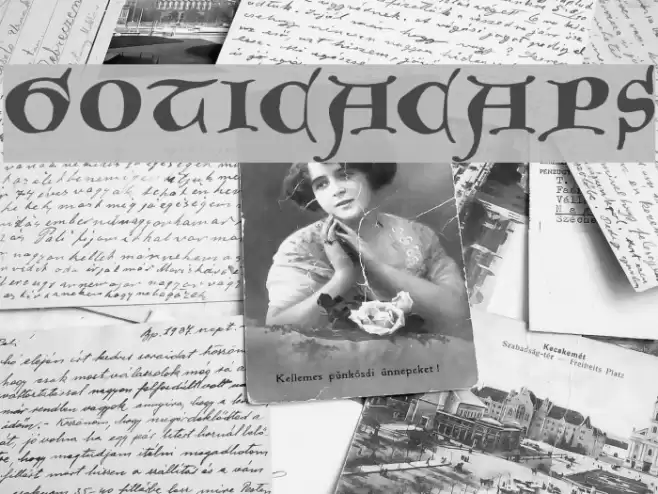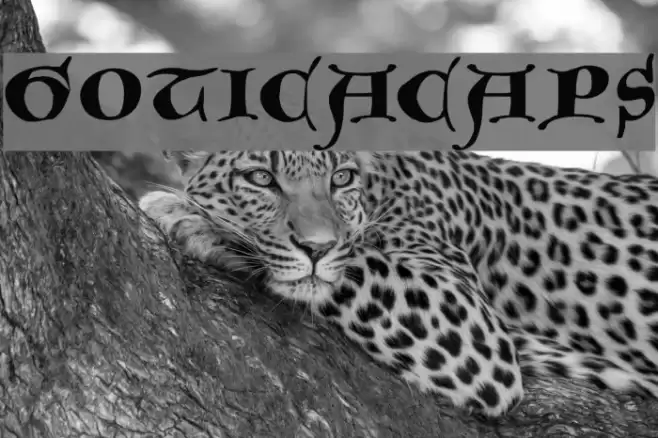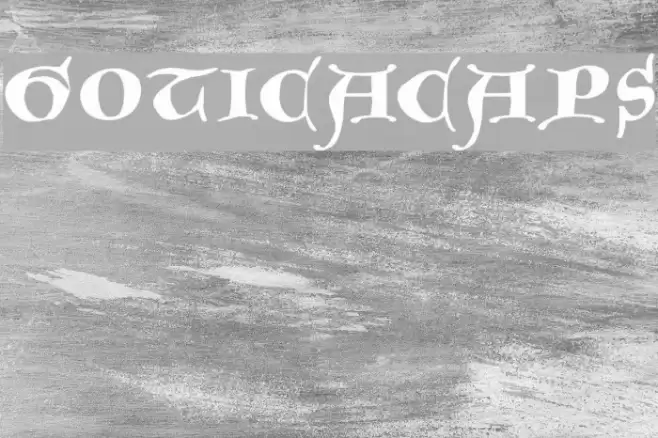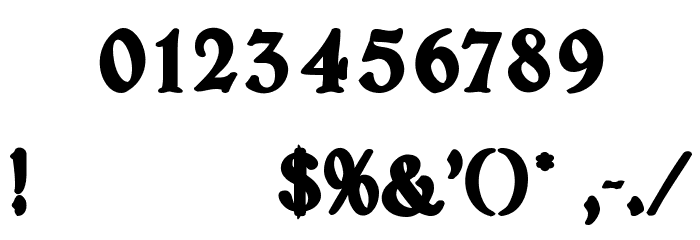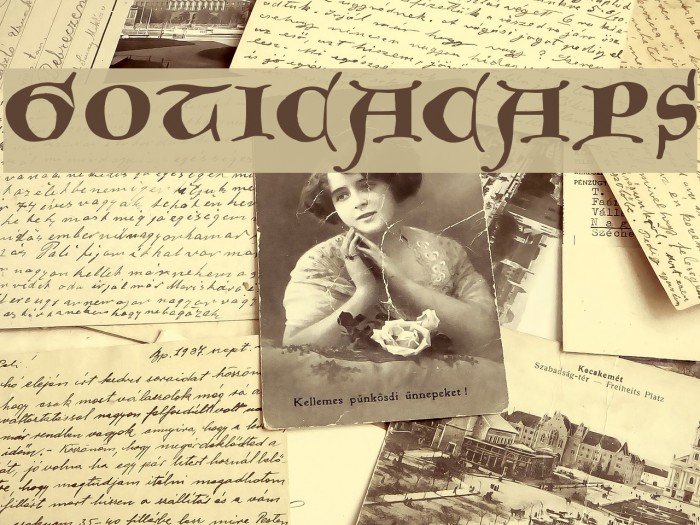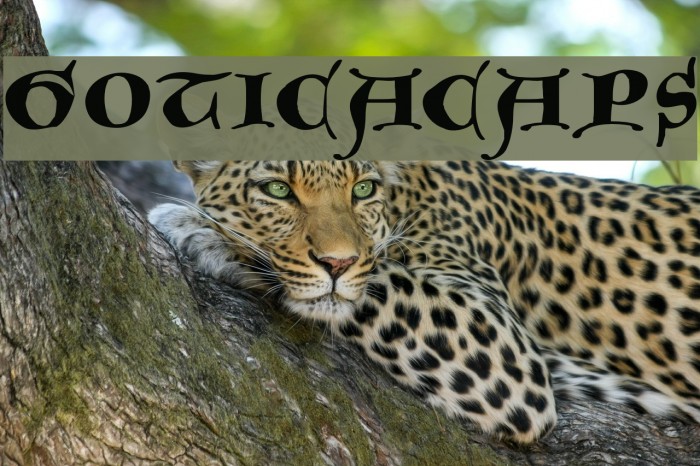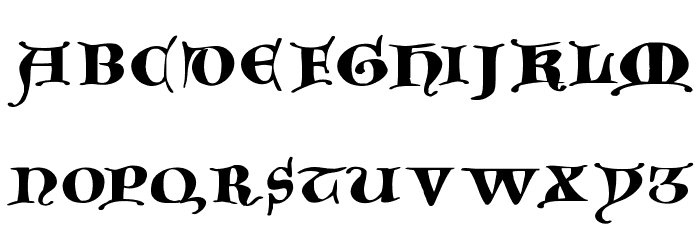
GoticaCaps Font
GoticaCaps Description
This font features a traditional blackletter style with ornate, intricate details reminiscent of medieval script. The characters are bold and dramatic, with sharp angles and elaborate flourishes that give it a distinct, historical appearance. The uppercase letters are particularly elaborate, with sweeping curves and pointed serifs. The lowercase letters maintain the same decorative style, though they are slightly more subdued. Numbers and special characters are consistent with the overall aesthetic, providing a cohesive look across all glyphs. This font is ideal for projects that require a touch of antiquity and elegance.
A bold, ornate blackletter font with medieval flair and intricate details from Uncategorized fonts.
- Proposed Projects: Ideal for historical documents, event invitations, book covers, or any project needing a vintage, gothic touch.
- Overall Style: Vintage
- Use Case: Logos, Headlines, Decorative text